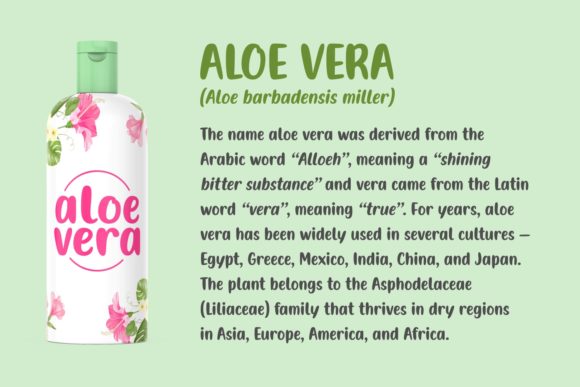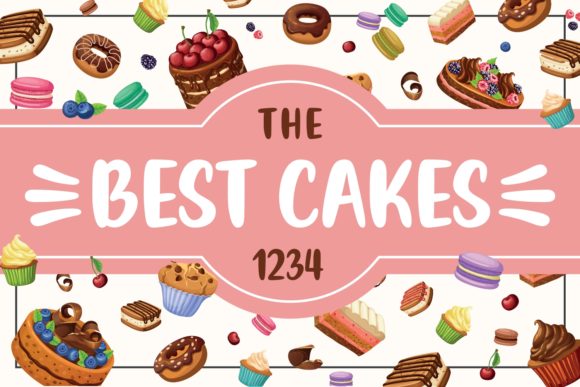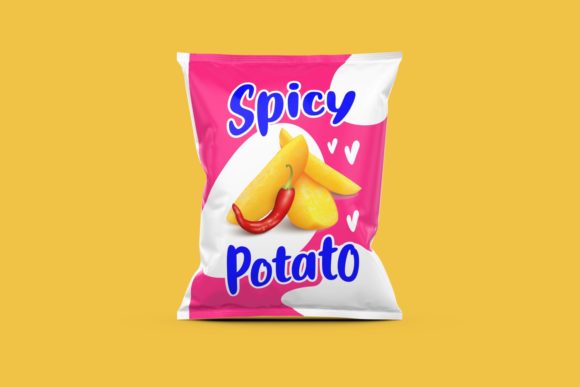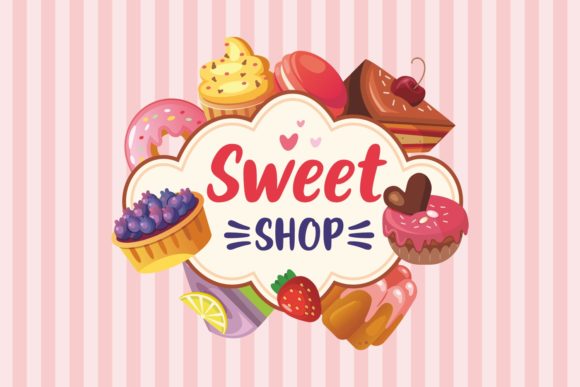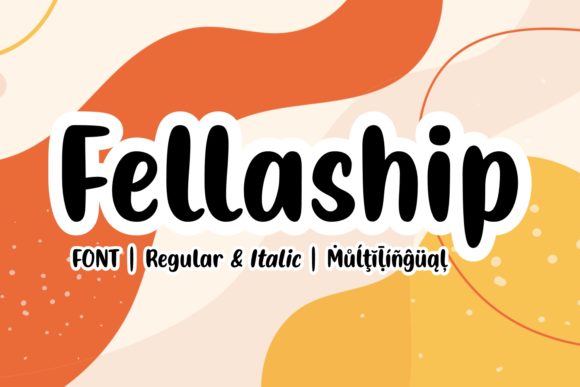
Fellaship Font: The Perfect Playful Handwritten Font for Your Crafting Projects
Are you a designer or crafter looking for a unique and playful font to add a personal touch to your projects? Look no further than Fellaship Font! This carefully crafted handwritten font is designed to fit any crafting idea or project you wish to develop, making it the perfect addition to your creative toolkit.
What is Fellaship Font?
Fellaship Font is a modern, playful handwritten font that exudes a sense of fun and creativity. Its carefully designed characters are perfect for a wide range of crafting projects, from DIY tutorials and crafting blogs to social media graphics and handmade product labels. With its friendly and approachable feel, Fellaship Font is sure to bring a smile to your audience’s faces and make your projects stand out.
Key Features of Fellaship Font
- Playful and Handwritten: Fellaship Font features a playful, handwritten style that’s perfect for adding a personal touch to your projects.
- Carefully Designed: Each character has been carefully designed to ensure that the font is easy to read and looks great in a variety of contexts.
- Versatile: Fellaship Font can be used for a wide range of crafting projects, from DIY tutorials and crafting blogs to social media graphics and handmade product labels.
Why Choose Fellaship Font?
So why choose Fellaship Font for your crafting projects? Here are just a few reasons:
- Adds a Personal Touch: Fellaship Font adds a personal touch to your projects, making them feel more handmade and unique.
- Stand Out from the Crowd: With its playful and handwritten style, Fellaship Font is sure to make your projects stand out from the crowd.
- Perfect for Crafting: Fellaship Font is specifically designed with crafting in mind, making it the perfect choice for DIY tutorials, crafting blogs, and handmade product labels.
Tips and Tricks for Using Fellaship Font
Here are a few tips and tricks to help you get the most out of Fellaship Font:
- Experiment with Sizes: Don’t be afraid to experiment with different font sizes to add visual interest to your projects.
- Pair with Other Fonts: Fellaship Font pairs well with other fonts, so don’t be afraid to try pairing it with a bold or serif font for added contrast.
- Use for Headings and Titles: Fellaship Font is perfect for headings and titles, adding a playful touch to your projects.